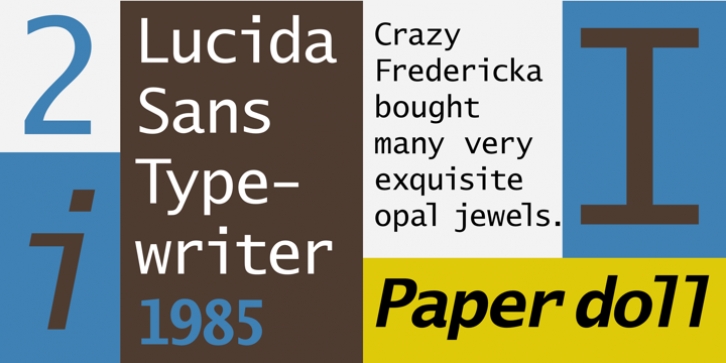
Originally designed in 1985 by Charles Bigelow and Kris Holmes and first licensed by the Imagen Corporation, Lucida Sans Typewriter is a monospaced sans serif typeface.
Like all Bigelow and Holmes types, it has distinct calligraphic origins that are most evident in its subtle curves and stroke weight variations.
Lucida Sans Typewriter has the defining legibility standard of all the Lucida typefaces, making it useful for just about any communication form in existence, including computer screens and faxes.
Typewriter faces have found a niche in display work, especially in advertising, and Lucida Sans Typewriter is no exception. It is an ideal candidate because of its clean lines and unrivaled legibility.